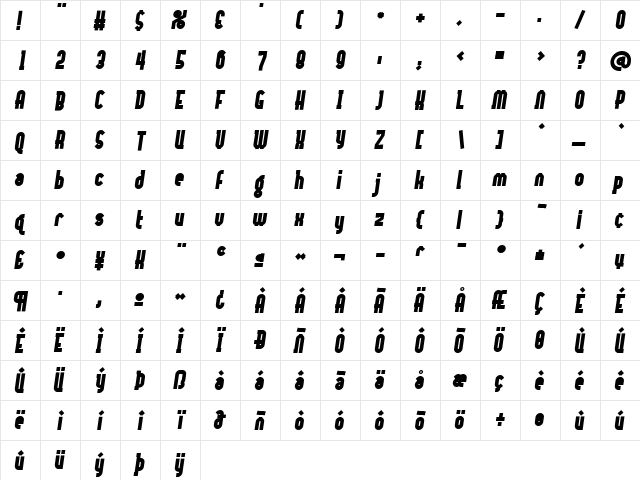
Centrifuge Ultra Bold
Design Context for Centrifuge Typeface
Centrifuge takes a measured approach to typography — its balanced proportions and neutral character make it a reliable workhorse for both digital and print work. The heavy weight commands attention and anchors typographic hierarchies.
Pro Tip: Use Centrifuge in both headline and body roles to test its range before committing to a single application.